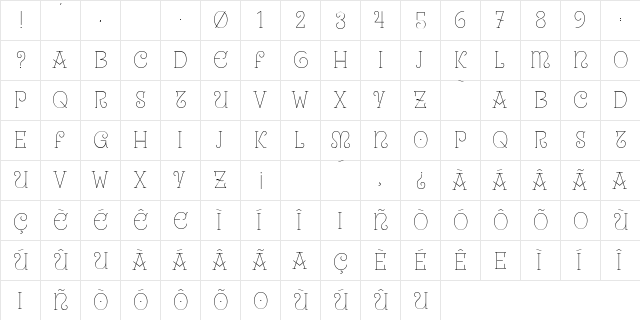
Uralita Fina
| Foundry | Rubή Prol |
| Designer | Rubή Prol |
Design Context for Uralita Typeface
Uralita offers clean, dependable letterforms without strong stylistic allegiance, making it a practical choice for designers who need flexibility.